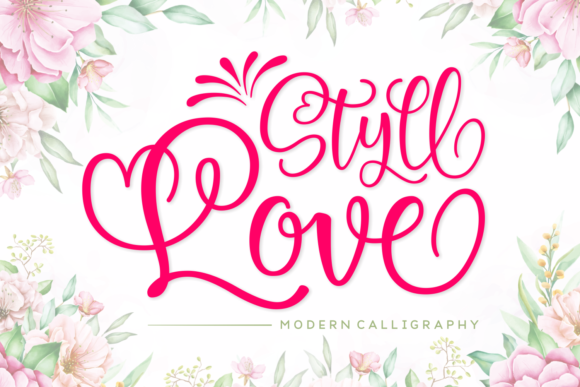
Styll Love: A Script Typeface for Editorial Publishing
Every editorial project depends on a clear visual voice. When I work on a magazine layout, a blog redesign, or a printable guide, the typeface I choose for titles and accents does more than decorate the page. It signals tone, frames the reader’s expectations, and creates the first impression of a brand. Styll Love is one of those script fonts that immediately feels at home in editorial contexts. It brings a handcrafted elegance to headers, quote graphics, and cover text without sacrificing readability or versatility. For publishers, bloggers, and content creators who want to elevate their visual storytelling, this typeface deserves a close look.
What Makes Styll Love Stand Out in Editorial Work
Styll Love is a beautiful script font defined by flowing swashes and carefully designed ligatures. The letterforms carry a natural rhythm that mimics hand-lettering while maintaining the consistency needed for professional layouts. The swashes are not an afterthought. They are integrated into the glyph set in a way that allows you to use them sparingly for emphasis or generously for a more ornate effect. This flexibility makes Styll Love suitable for a wide range of editorial applications, from a subtle subtitle to a dramatic cover headline.
The personality of this typeface sits somewhere between refined and friendly. It has enough structure to feel polished in a wedding guide or a coaching workbook, yet enough warmth to work well on a lifestyle blog or a recipe ebook. It does not try to be a neutral workhorse. Instead, it plays the role of an accent typeface that draws attention and holds it. For anyone building a publication brand, Styll Love offers a distinct voice that can become a signature element across issues, posts, and products.
Using Styll Love in Blog Headers and Magazine Layouts
One of the most natural places for Styll Love is in blog post titles and magazine headlines. A strong header sets the tone for the content that follows, and a script font like this one adds a layer of personality that a standard serif or sans serif font cannot easily replicate. When I use Styll Love for a blog header, I pair it with plenty of whitespace around the title so the swashes have room to breathe. This prevents the text from feeling crowded and keeps the focus on the message rather than the ornamentation.
For magazine covers, Styll Love works beautifully as the main title or as a secondary headline that introduces the feature story. The ligatures give the text a seamless flow that reads almost like a signature. If you are designing a cover for a digital magazine or a print publication, consider using Styll Love for the lead article title and then layering a clean sans serif font for the supporting cover lines. This creates a clear visual hierarchy that guides the reader from the most prominent element down to the details.
Ebook Titles, Chapter Openers, and Quote Graphics
Ebook covers and interior chapter titles benefit from typography that feels personal without being distracting. Styll Love works well in both roles. On a cover, the script can convey the genre and mood of the book instantly. A romance novel, a travel memoir, or a self-help guide each require a different emotional cue, and Styll Love can adapt depending on how you size and space the letters. For chapter openers, using the font for the chapter number or the title adds a decorative touch that breaks up long passages of body text and signals a new section to the reader.
Pull quotes and quote graphics are another area where Styll Love shines. When I extract a key line from an article and present it as a standalone graphic, I want the typography to reflect the importance of that statement. Styll Love gives those quotes a handcrafted quality that feels personal and intentional. Whether you are sharing the graphic on social media, embedding it in a newsletter, or placing it in a magazine spread, the font makes the quote feel curated rather than thrown together. The swashes can be used at the beginning or end of the quote to frame it elegantly without needing extra decorative elements.
Practical Examples Across Content Formats
Let me walk through a few concrete scenarios where Styll Love fits naturally into editorial workflows.
Lifestyle blog. The blog uses a clean serif font for body copy and a neutral sans serif for navigation. For post titles, the blogger adopts Styll Love to give each article a unique visual identity. The swashes are used sparingly on the first letter of the title, creating a subtle entry point that repeats across the site. Over time, readers begin to associate that typographic detail with the brand.
Recipe ebook. The cover features Styll Love for the title and subtitle. Inside, each recipe chapter uses the font for the recipe name, while ingredients and instructions are set in a readable serif font. The ligatures in Styll Love help the recipe titles feel cohesive and well crafted, which reinforces the quality of the content. The font also appears on the back cover for a tagline and a brief author note.
Wedding guide. A digital guide for couples planning their wedding uses Styll Love for section headers, pull quotes from real couples, and the cover title. The script style matches the romantic and personal tone of the content. The guide also includes printable worksheets where Styll Love appears on checklist headers and budget trackers, adding a polished finish to functional pages.